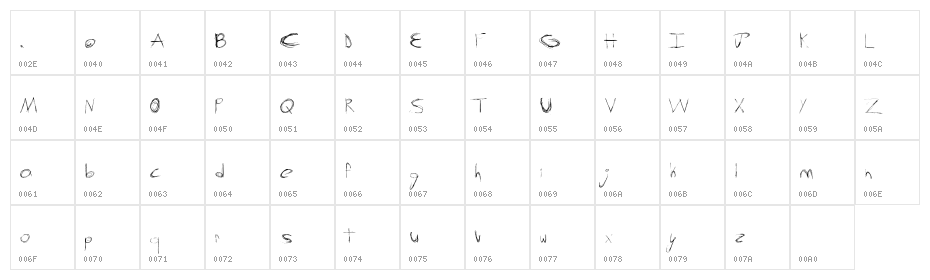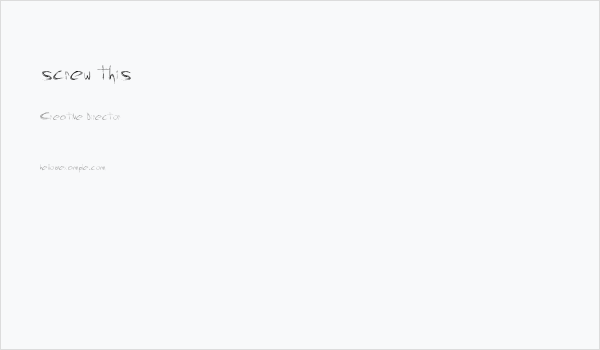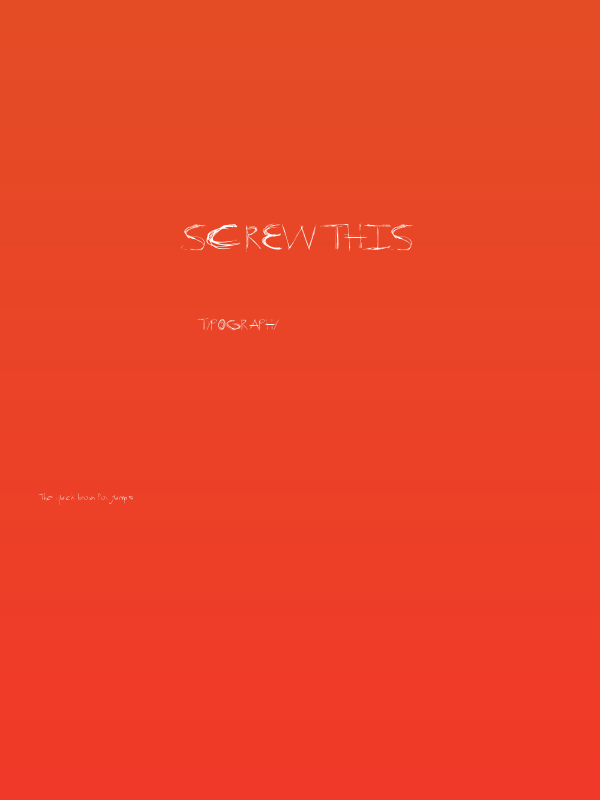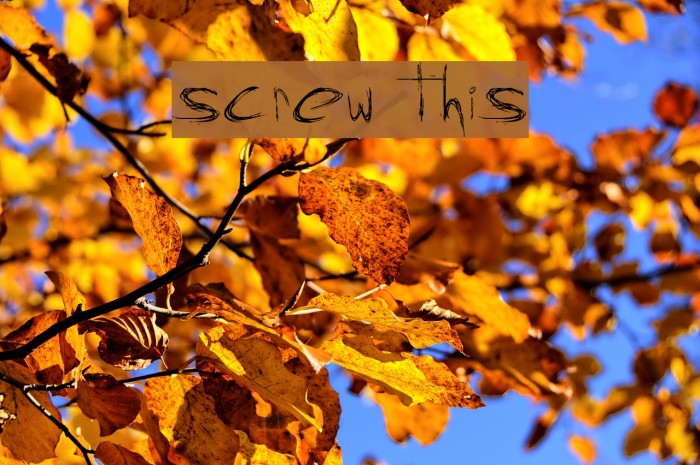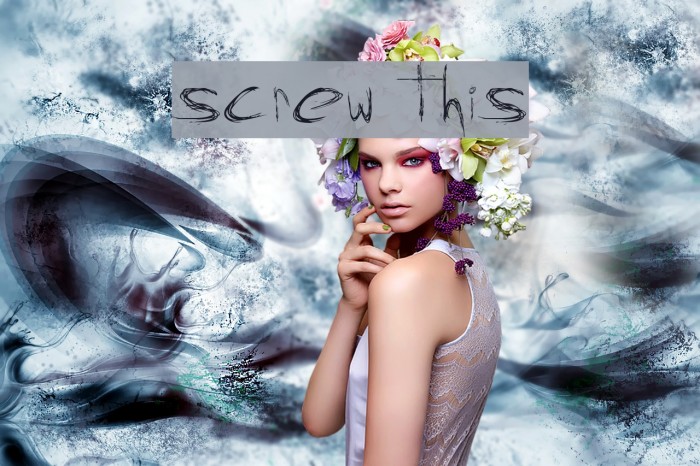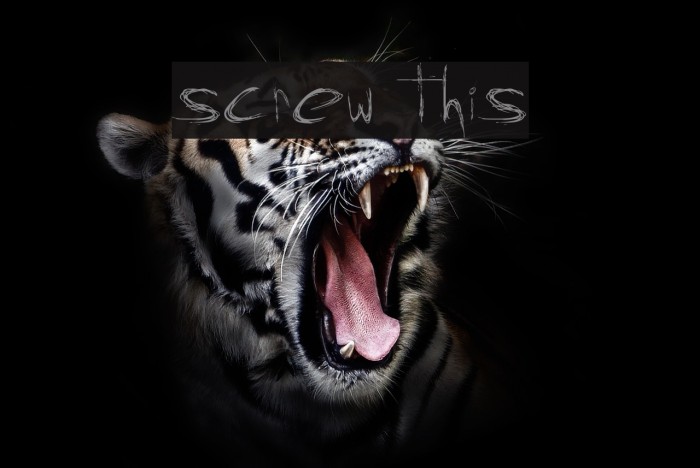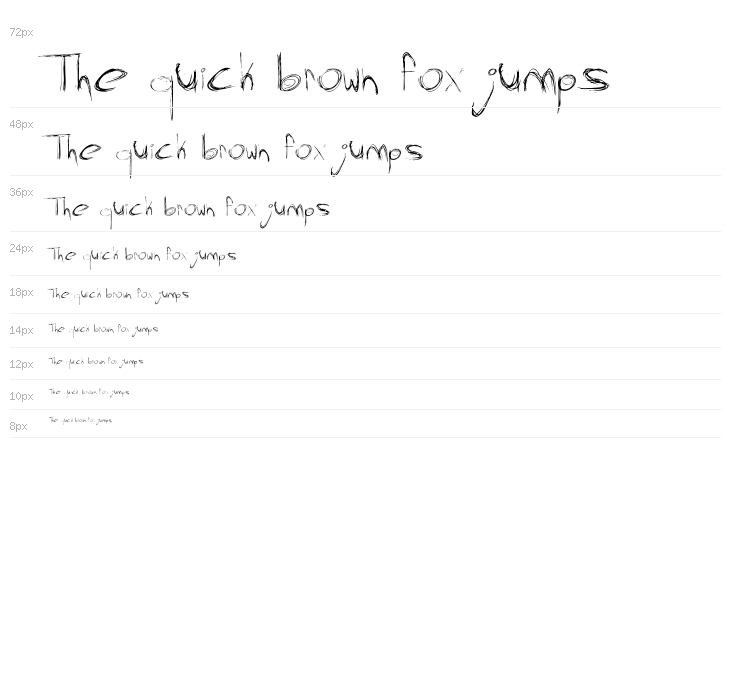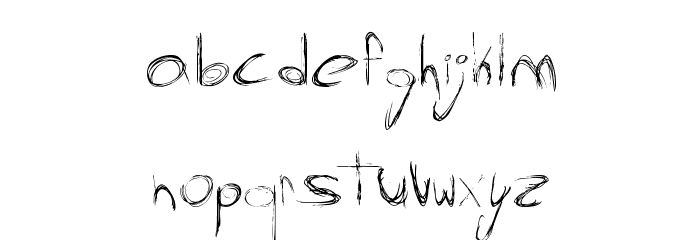
screw this Font
screw this Description
This font presents a raw, hand-drawn aesthetic with a chaotic and sketchy appearance. Each character is uniquely crafted with uneven strokes, giving it a distressed and grungy look. The letters are irregular in form, with varying line thicknesses that create a sense of movement and energy. The uppercase and lowercase letters maintain this erratic style, while the numbers and special characters follow suit, adding to the overall disordered charm. This font is ideal for projects that require a rebellious or edgy vibe, making it perfect for artistic or alternative designs.
| Overall Style | Grunge, Artistic, Edgy |
| Use Case | Logos, Posters, Artistic projects |
| Proposed Projects | Album covers, graffiti art, alternative posters, edgy branding, and rebellious-themed designs. |